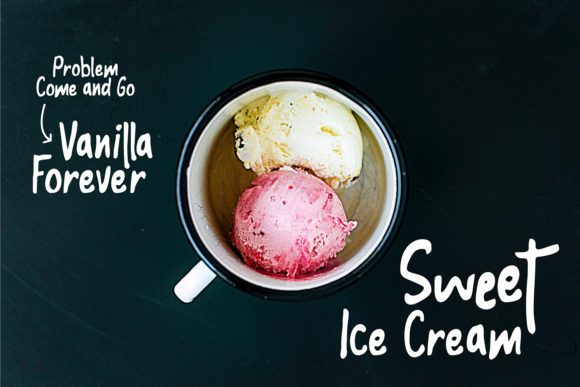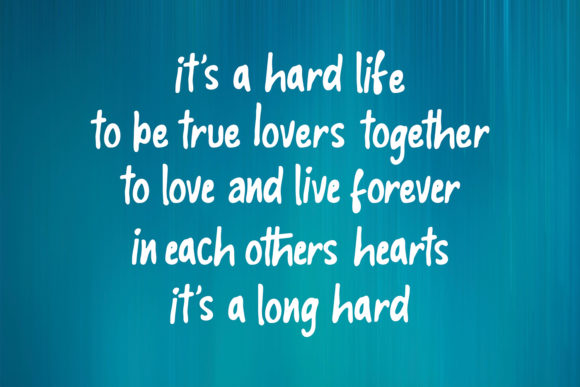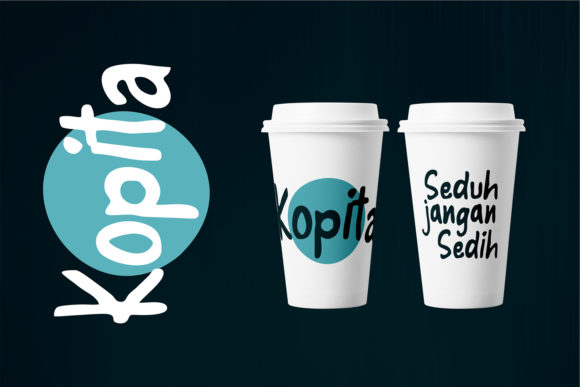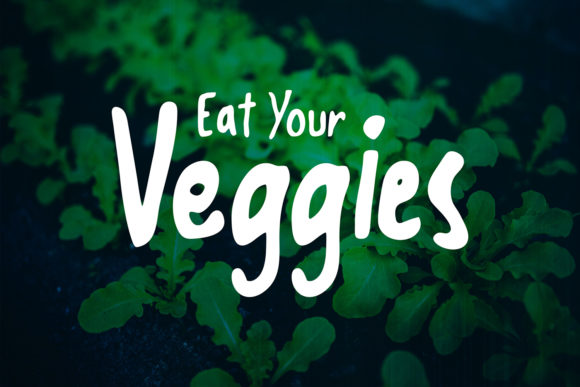
The Ultimate Besta Crunch Font Review: Adding Joy to Your Designs
I’ll never forget the time I was working on a project for a children’s birthday party, and I just couldn’t find the right font to match the playful vibe I was going for. The client wanted something fun, colorful, and eye-catching, but everything I tried seemed either too boring or too over-the-top. That’s when I stumbled upon the Besta Crunch font, and let me tell you, it was love at first sight! 💕
With its cute and colorful display, Besta Crunch instantly added a joyful touch to my design. It was like a breath of fresh air, and I knew right then and there that I had to share it with fellow designers and creatives. In this article, I’ll give you the lowdown on what makes Besta Crunch so special, its features, and how to make the most of it in your designs.
An Honest Review of Besta Crunch
What I Love About Besta Crunch ✨
• ✅ Vibrant and Colorful: Besta Crunch is not just a font; it’s an experience. Its bright and cheerful design makes it perfect for projects that need a pop of color and fun.
• ✅ Highly Versatile: Whether you’re working on a children’s book, a party invitation, or a brand identity, Besta Crunch can adapt to various design needs.
• ✅ Easy to Read: Despite its playful nature, Besta Crunch remains clear and readable, even at smaller sizes.
• ✅ OpenType Features: Besta Crunch comes with a range of OpenType features, including stylistic alternates and glyphs, which allow for even more customization.
• ⚠️ Legibility at Small Sizes: While generally readable, Besta Crunch can lose some of its charm and clarity when used at very small sizes. It’s best used for headlines or titles rather than body text.
• ⚠️ Overuse: Because it’s so fun and colorful, there’s a risk of overusing Besta Crunch in a single design. Balance is key to making sure your design doesn’t become overwhelming.
Exploring OpenType Features, Glyphs, and Stylistic Alternates
Besta Crunch supports OpenType features, which can add an extra layer of creativity to your designs. Here’s how to access them:
The Backstory of Besta Crunch: Designer Inspiration
Besta Crunch was designed with the intention of bringing joy and playfulness to the world of typography. Inspired by childhood memories of bright colors and fun shapes, the designer aimed to create a font that would make any project feel like a celebration. Whether used in educational materials, party invitations, or branding, Besta Crunch is meant to spread happiness.
Q: What type of projects is Besta Crunch best suited for?
A: Besta Crunch is perfect for projects that require a fun and playful touch, such as children’s books, party invitations, educational materials, and brand identities aimed at a younger audience.
Q: Is Besta Crunch easy to read?
A: Besta Crunch is generally easy to read, especially at larger sizes. However, for body text or smaller sizes, it might be less suitable due to its playful and decorative nature.